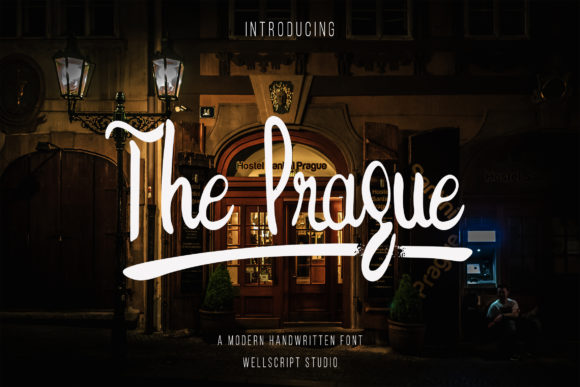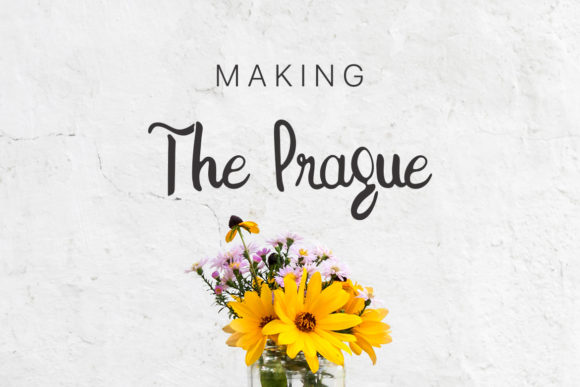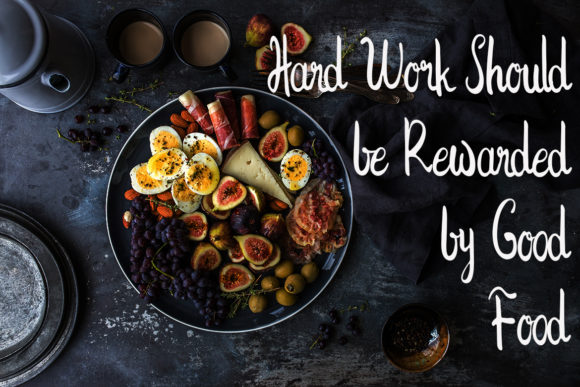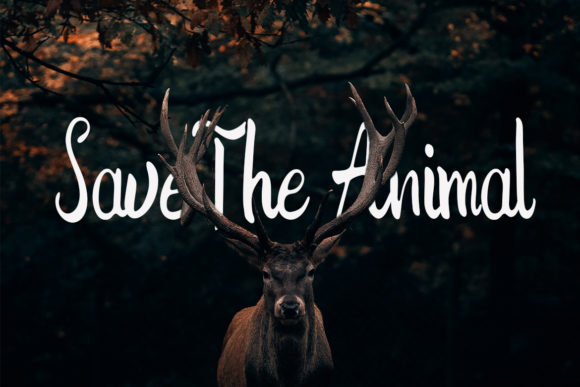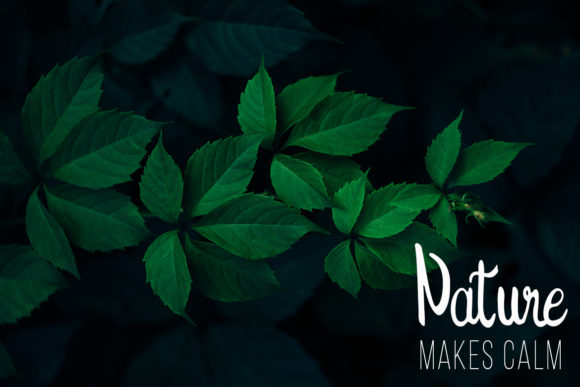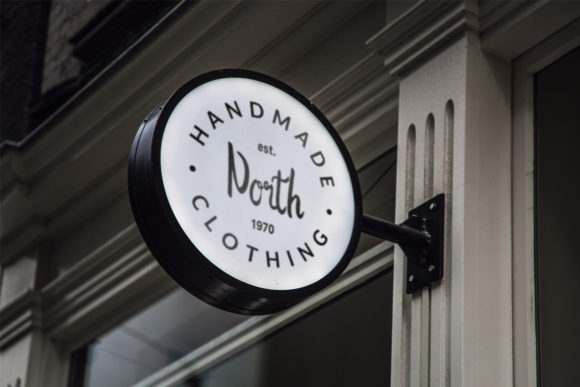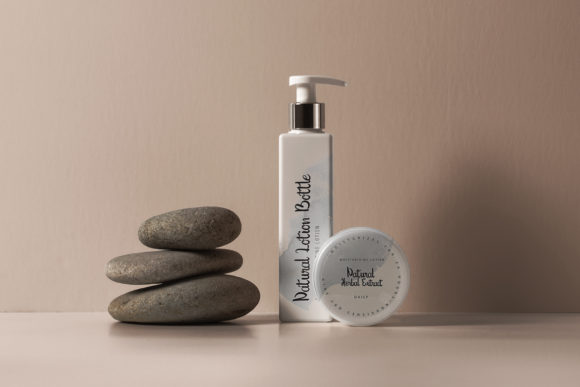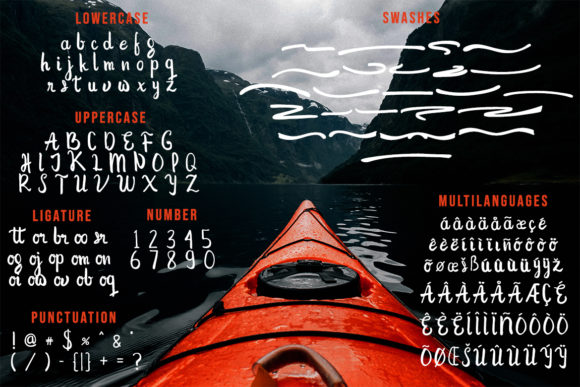
The Prague Font
About The Prague Font
The Prague is a raw and natural script font that feels dynamic and bold. Great for adding that authentic vibe to your next design idea!